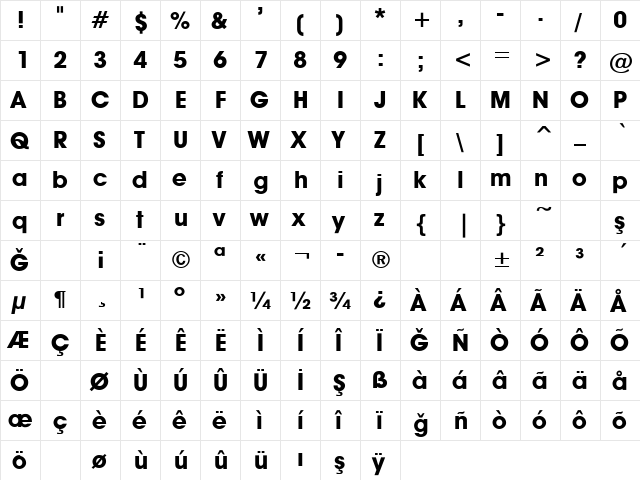
ITC_ Avant_ Garde Bold
Design Context for ITC_ Avant_ Garde Typeface
ITC_ Avant_ Garde is a composed and adaptable typeface that performs quietly and consistently across a wide range of design contexts. The heavy weight commands attention and anchors typographic hierarchies.